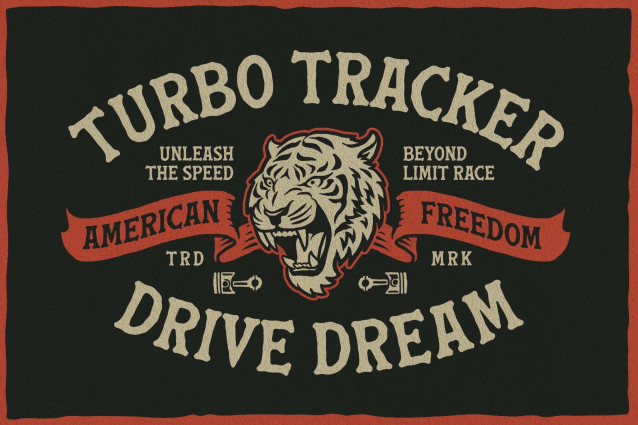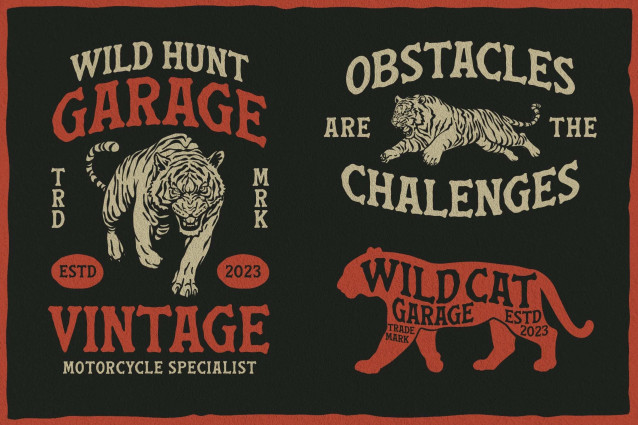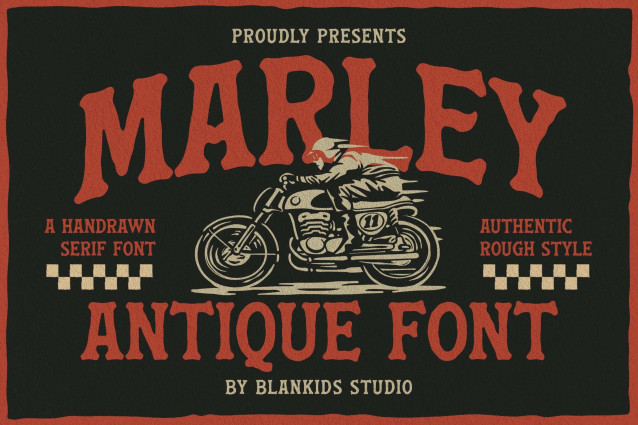
Marley Antique Font
Marley Antique Font is a bold, hand-drawn serif font inspired by classic vintage signage, retro motorcycle culture, and timeless Americana aesthetics. Designed with an authentic rough texture, this typeface captures the spirit of handcrafted lettering perfect for designers who want to add character, grit, and personality to their work.
Every letter in Marley Antique is carefully crafted to deliver a natural, imperfect look, making it ideal for projects that demand a strong, nostalgic, and masculine visual identity.